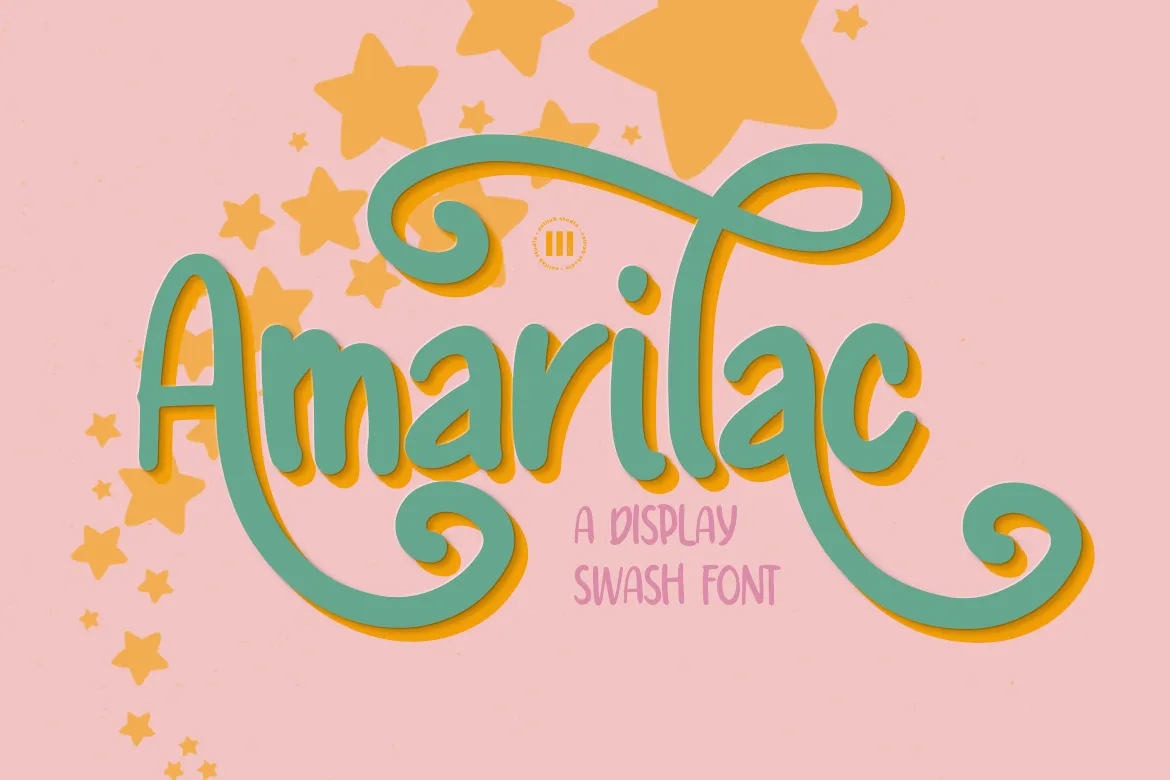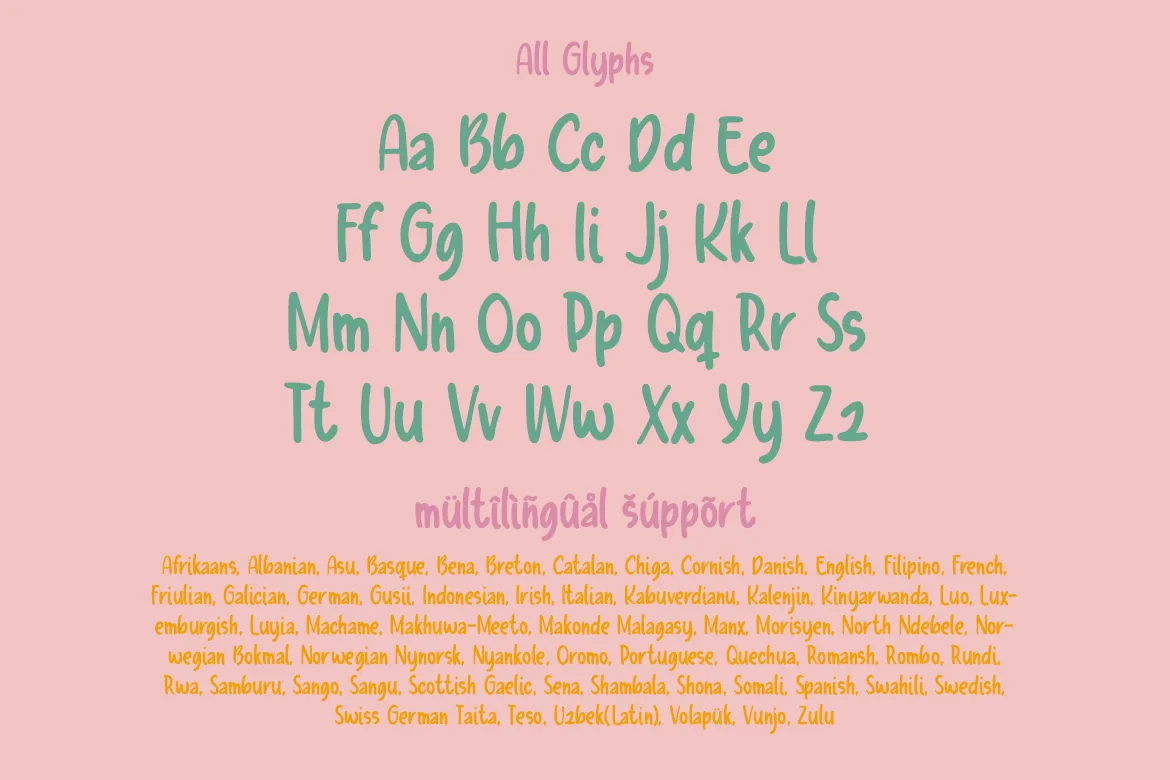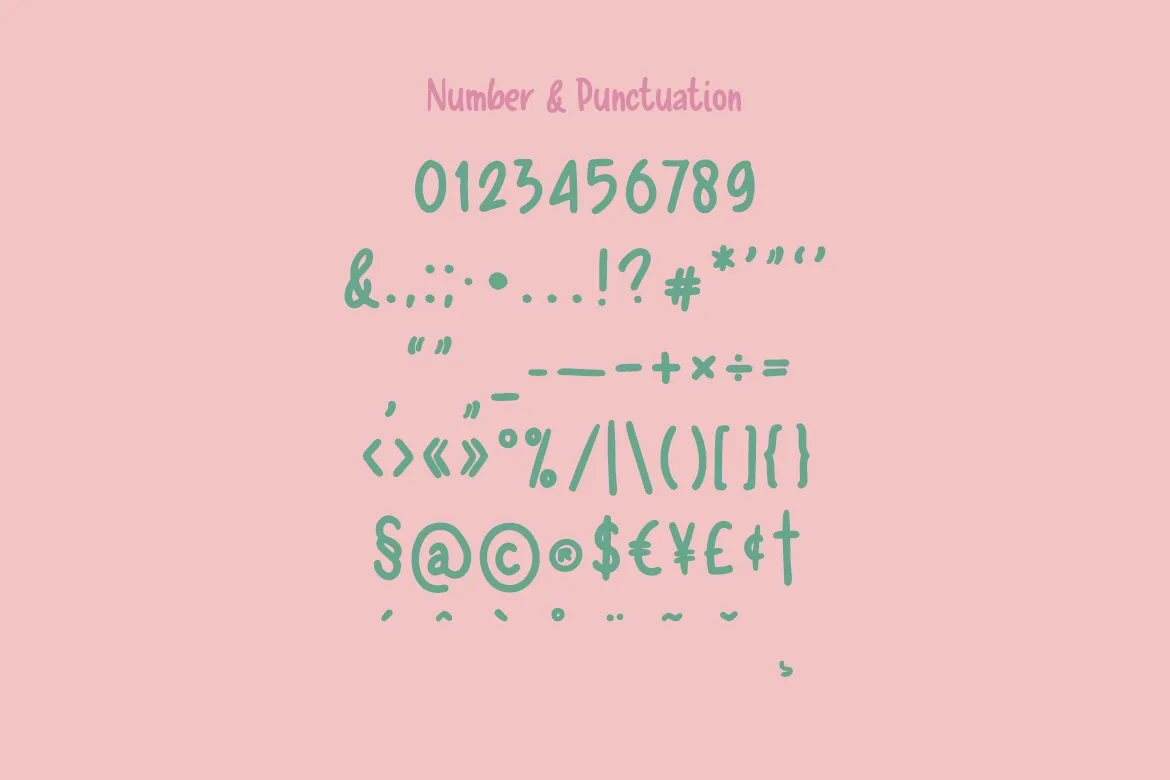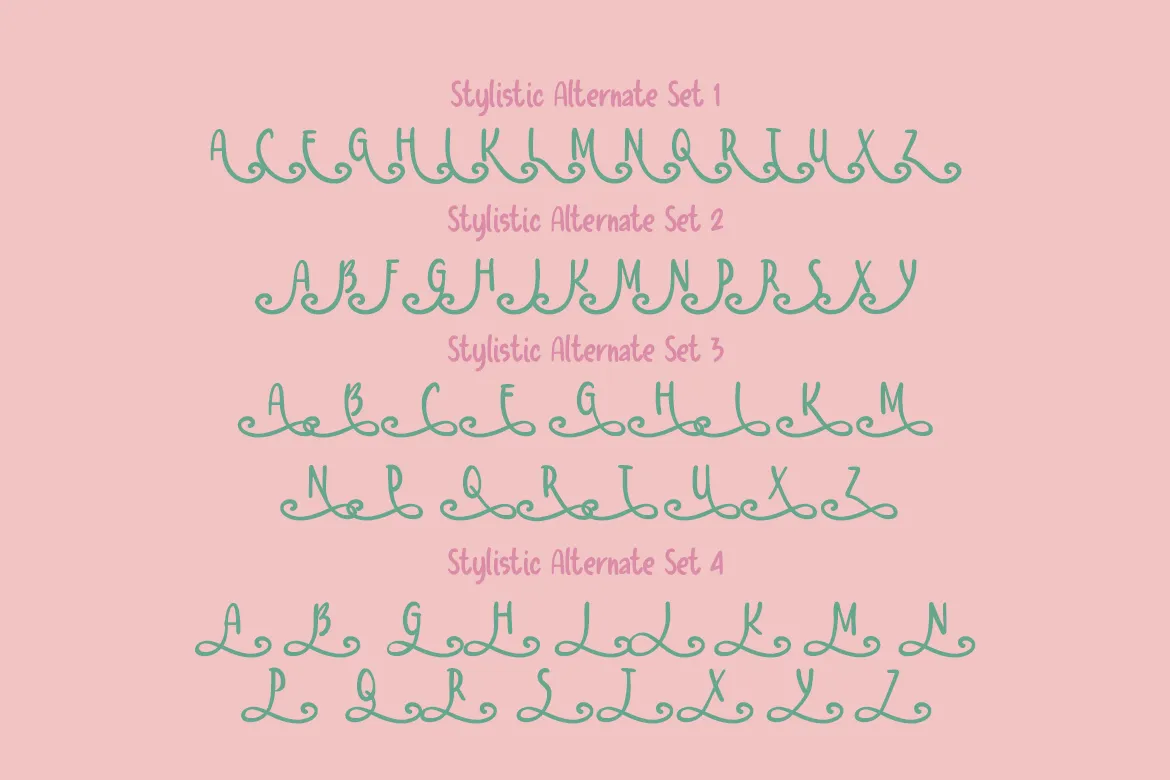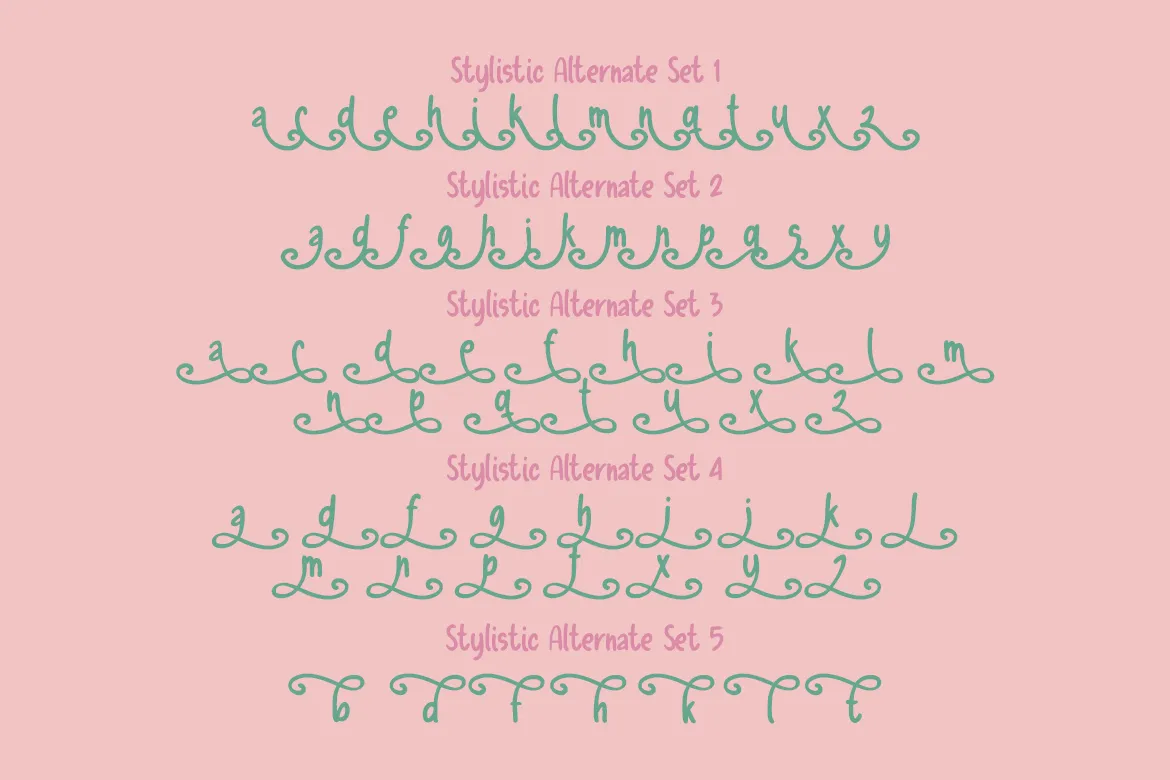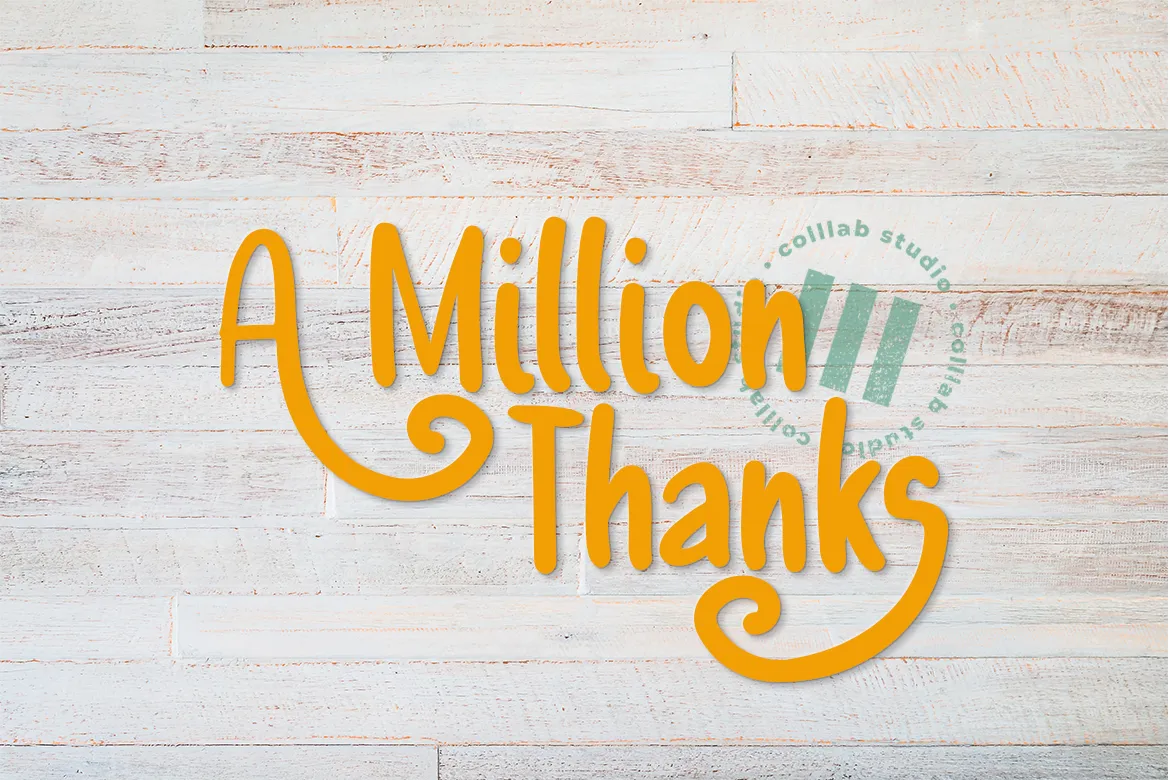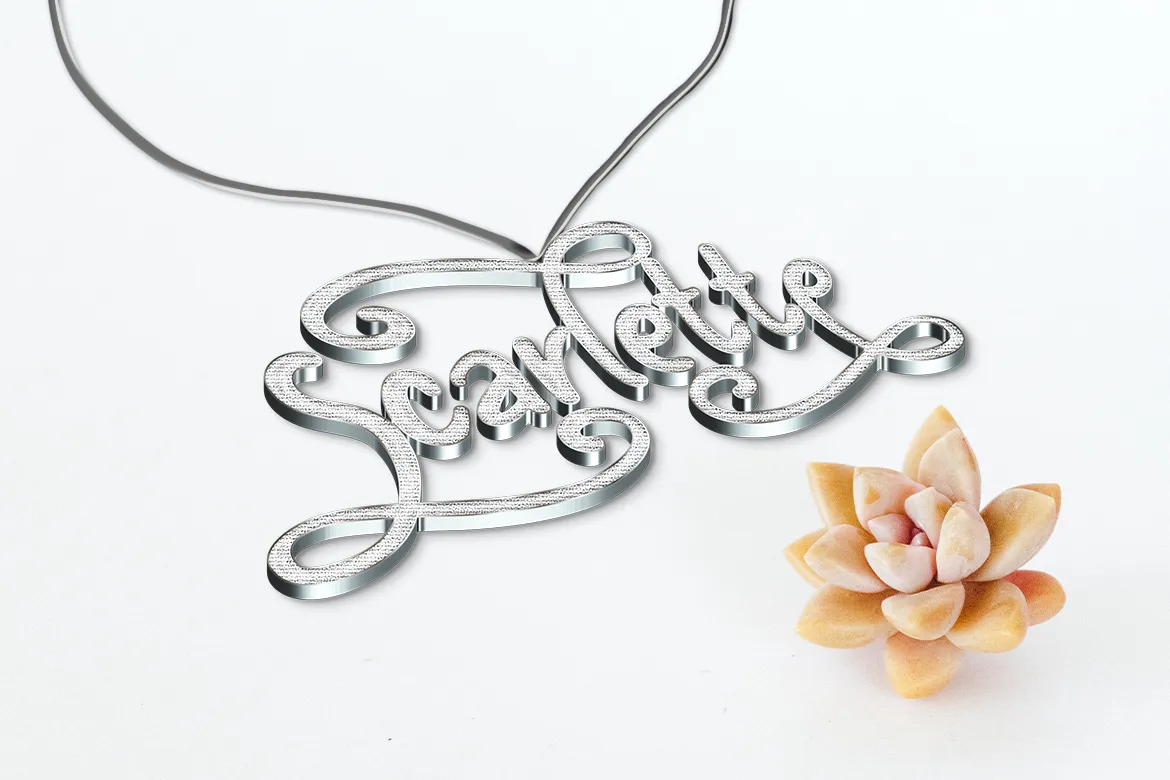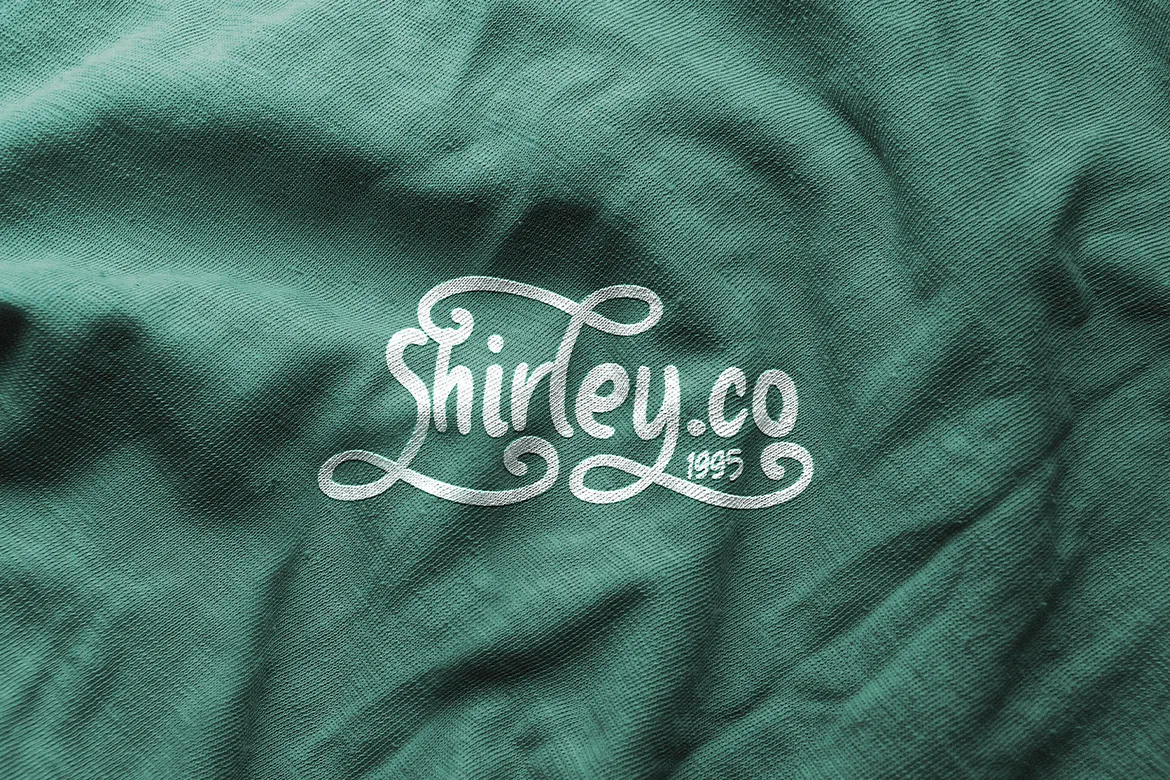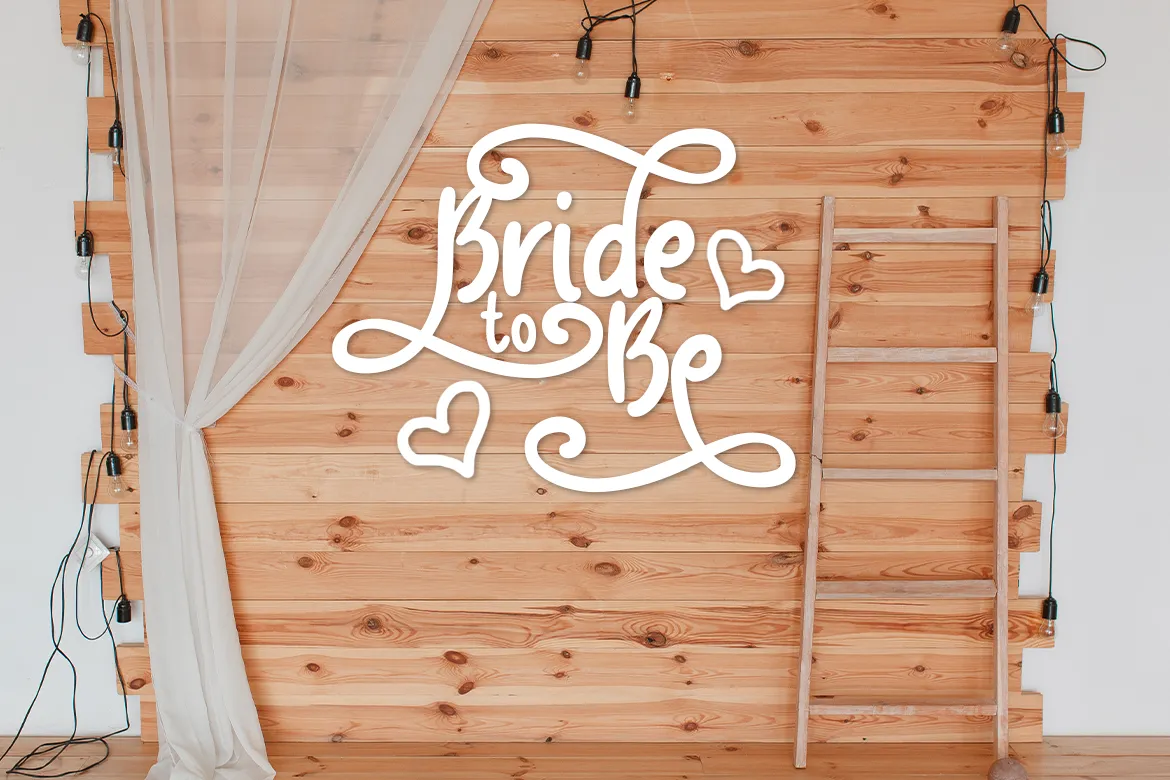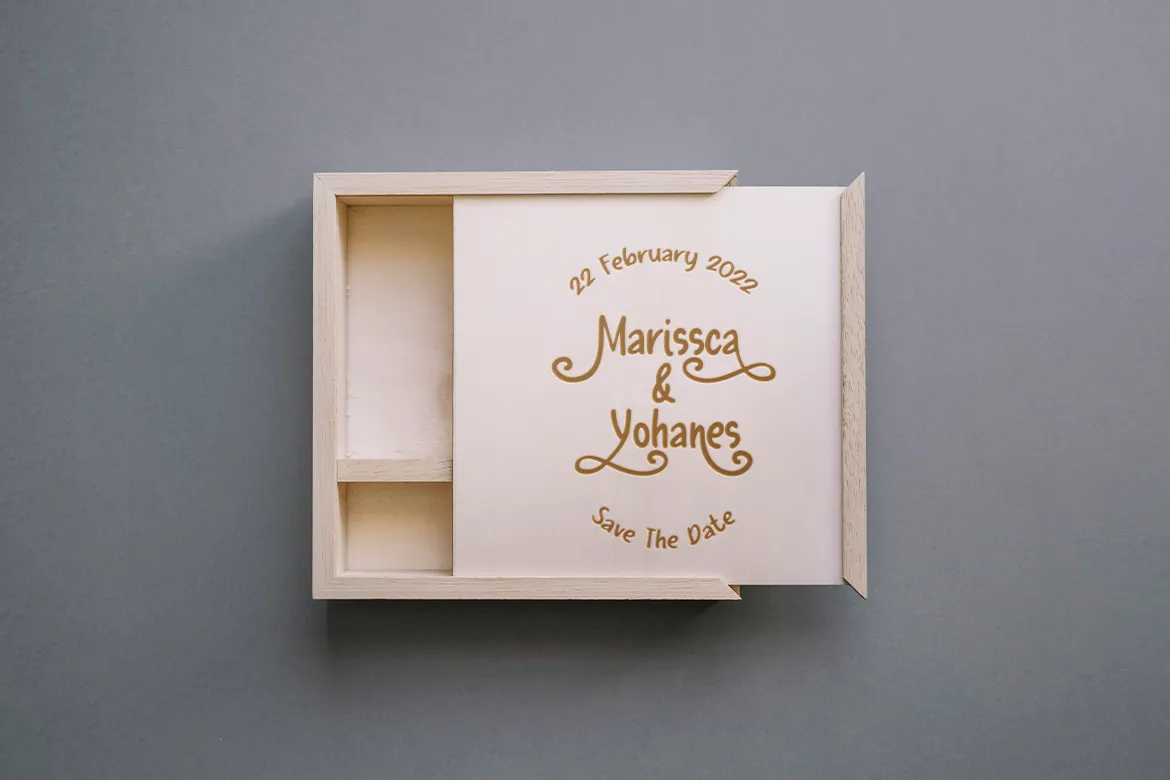
Amarilac
Amarilac is a headline typeface that turns every word into a celebration. Perfect for logos, packaging, posters, and social-first branding, it shouts one thing loud and clear: “look at me.” Each letter is hand-drawn with bold contrast and outrageous swash terminals, yet carefully built so the drama never gets in the way of readability at big sizes.
Inspiration Behind Amarilac
Amarilac was shaped by the worlds of high-fashion typography and classic calligraphy. Think of magazine mastheads, perfume packaging, and couture show posters—all designed to grab attention with elegance and drama. The goal was to distill that sense of luxury and spectacle into a single typeface: bold swashes, sharp contrasts, and a rhythm that feels like fabric in motion. It’s crafted for designers who want letters to do more than speak—they perform.
Key Features
• Swash Engine – 12 stylistic sets and 300+ alternates to keep words alive with options.
• Uppercase Drama – every capital doubles as art; the “A” alone has 7 wild swash choices that stretch, curl, or tuck under its neighbor.
• Lowercase Flow – ascenders and descenders weave together so words feel like a single unbroken ribbon.
• Global Voice – supports 200+ Latin-based languages, from Afrikaans to Zulu.
• Smart OpenType – PUA-encoded alternates, contextual endings, and ligatures that swap in automatically.
• Display Toolkit – full set of numbers, currency, punctuation, and ornaments, so you never need to leave the font to finish a layout.